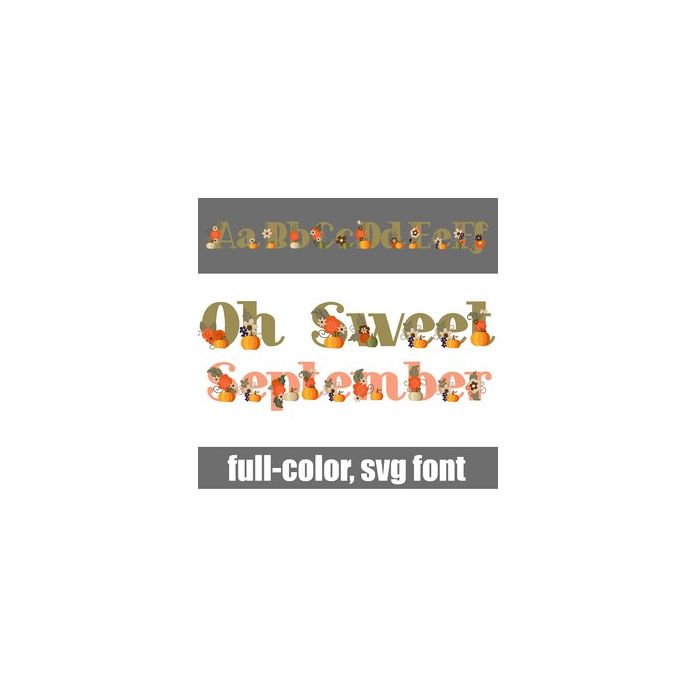
This full-color font features an autumn color palette and pretty fall florals and pumpkins. There is an alt case w/ additional colors you can access through your system or Silhouette's glyph map.